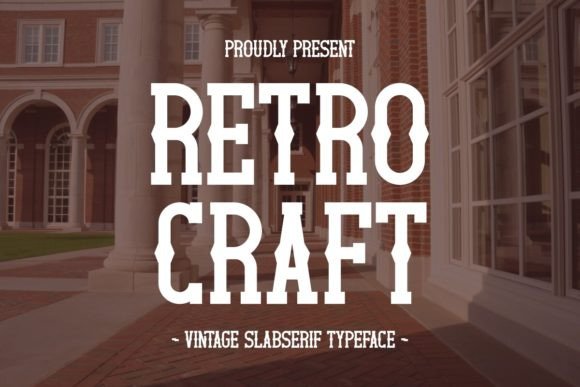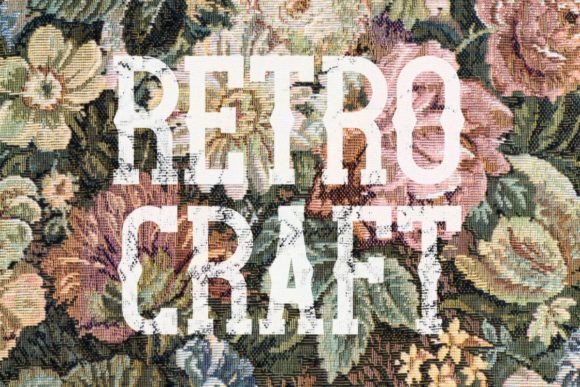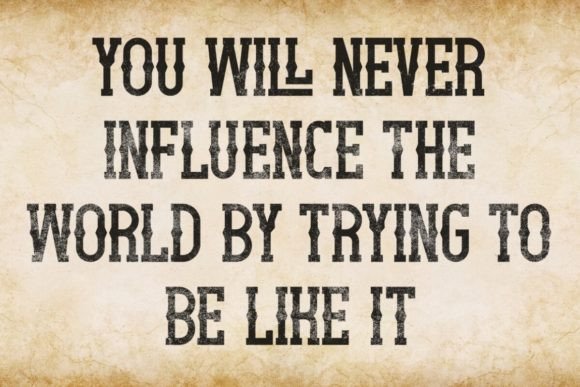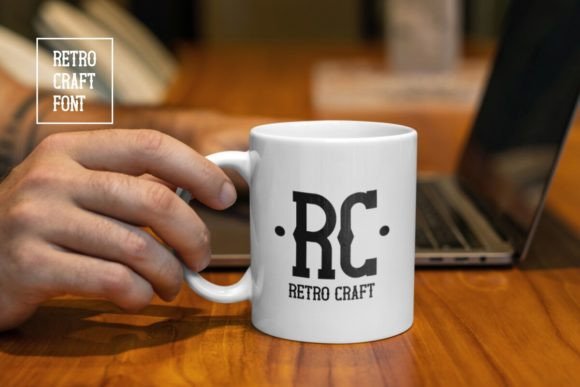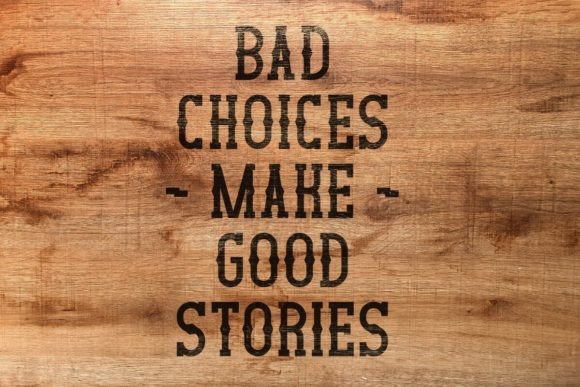
About Retro Craft
Retro Craft is a slab serif font with a vintage and manly style inspired by old crafts. This font is great for news posters, product packaging, quotes, interior designs, t-shirts, graphic clothing, online banners, social media, greeting cards, initials, logo designs, event banners, exhibitions, book covers, ebook covers, article title, blog title, craft, DIY, and many other creative ideas.